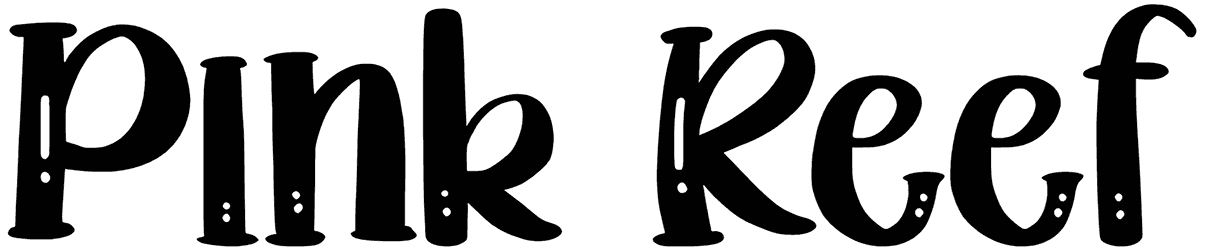
Pink Reef Font
If you’re in charge of a mission-critical operation, Pink Reef could solve all your problems. This cartoon font is perfect for making a strong statement in a variety of print and digital designs, especially those aimed at children.